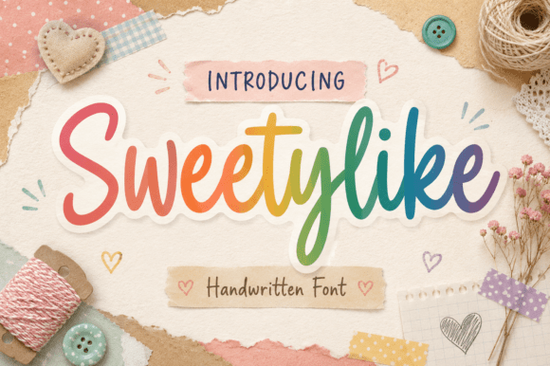
If you're looking for a friendly, hand-drawn script font that feels warm and approachable without looking overly polished or stiff you’ll likely enjoy Sweetylike Font. It’s not designed to shout or dominate; instead, it invites attention with soft, rounded strokes and gentle organic movement. Think of it as the kind of typeface you’d choose for a small-batch jam label, a heartfelt wedding invitation, or a cozy Instagram story announcing your new handmade shop. Its charm lies in its quiet confidence not flashy, but memorable.
What makes Sweetylike work so well for real projects?
Unlike some script fonts that rely on tight loops or dramatic flourishes, Sweetylike keeps things relaxed. The letterforms flow naturally, like something written with a soft brush pen not traced or over-refined. That means it scales well across sizes: it reads clearly at 12 pt on a product tag and still holds personality at 72 pt on a social media graphic. It includes standard Latin characters, numbers, and punctuation, plus basic OpenType features like ligatures and alternate characters (check the preview files on Creative Fabrica to see which ones are included).
Because it’s built with casual warmth in mind, it pairs especially well with clean sans-serifs for contrast say, pairing Sweetylike headlines with Locked Whisper Font for body text or even other relaxed scripts like Snowlet Font if you’re layering quotes or decorative elements.
Where do people actually use Sweetylike?
We’ve seen crafters and small business owners reach for Sweetylike in several practical ways:
- Product packaging especially for artisanal goods like candles, bath salts, or greeting cards where tone matters as much as visuals;
- Social media posts quote graphics, announcements, or behind-the-scenes captions that feel personal, not corporate;
- Print-on-demand designs think mugs, tote bags, or notebooks where friendliness translates into higher engagement and shares;
- DIY wedding or baby shower materials place cards, menus, or signage that should feel handmade, even when printed;
- Branding accents not as a full logo font, but for subheads, slogans, or signature lines that soften a more structured brand identity.
It’s worth noting: Sweetylike isn’t meant for long paragraphs or dense copy. Like most script fonts, it shines brightest in short bursts titles, names, short phrases. If you need extended readability, pair it thoughtfully. For example, many designers combine it with a simple geometric sans-serif, or lean into contrast by using it alongside Spicy Chicken Font for playful energy or Amazing Teacher Font for a slightly more structured yet still friendly alternative.
How does it compare to other popular script fonts?
Sweetylike sits comfortably between ultra-casual and refined. It’s less formal than Amazing Teacher Font, less bouncy than Spicy Chicken Font, and softer in contrast than Locked Whisper Font. If you like the relaxed vibe of our handwritten font collection, you’ll recognize Sweetylike as a natural fit especially if you often reach for fonts that feel human-made rather than digitally perfect.
- Test it at your intended size early some script fonts lose clarity below 24 pt in print or 18 pt on screen;
- Check the character set: it supports Western European languages but doesn’t include extended diacritics or Cyrillic;
- Look at the preview PDF it shows all alternates and ligatures so you know what’s available;
- If you plan to use it commercially (e.g., on POD products), confirm your license covers unlimited sales Sweetylike’s standard license does;
- Try pairing it with fonts from the same stylistic family, like Snowlet Font, for cohesive mood boards or multi-font design kits.
If you're building a small brand or launching a craft-based side hustle, choosing a font that reflects your voice matters more than you might think. Sweetylike won’t fix weak copy or poor layout but it will help your words land with sincerity and lightness. And sometimes, that’s exactly what your audience remembers.